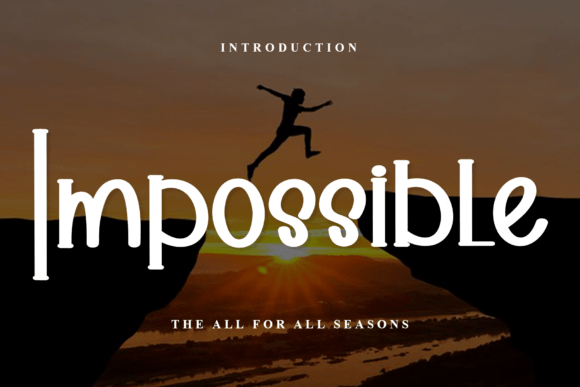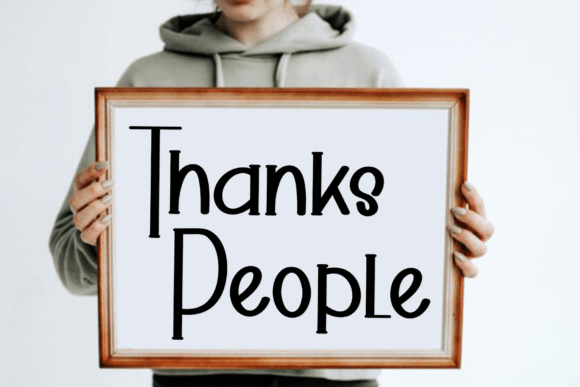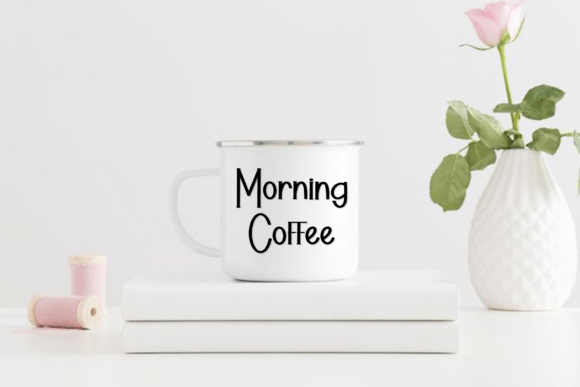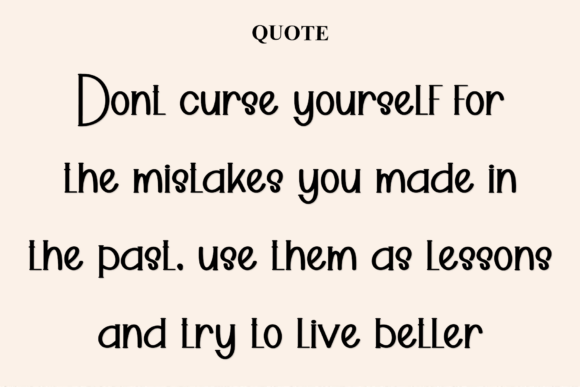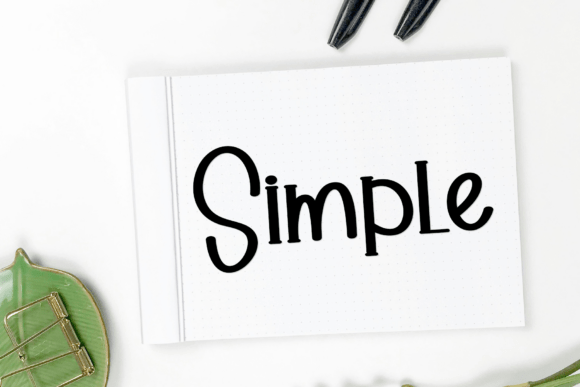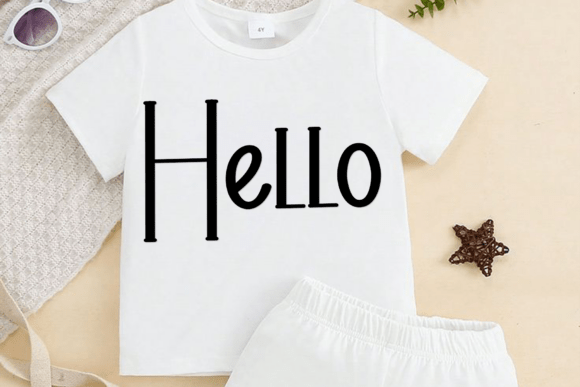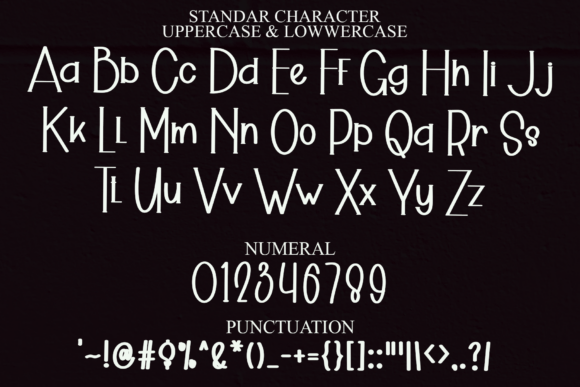
The Magic of the Impossible Font
As I sat down to create a holiday card for my loved ones, I was struggling to find the perfect font that captured the essence of the season. I wanted something that would transport them to a world of wonder and joy, something that would make them feel like they were stepping into a whimsical winter wonderland. And then, I stumbled upon the Impossible Font.
This festive and merry typeface is a game-changer for designers looking to add a touch of magic to their holiday projects. With its decorative elements and whimsical flair, the Impossible Font brings a cheerful and nostalgic ambiance to your words. Whether you’re creating greeting cards, gift tags, or holiday-themed projects, this font is sure to make your typography shine.
And the best part? The Impossible Font is PUA encoded, making it easy to access all of its amazing glyphs and ligatures. With this font, you can let your creativity run wild and add a dash of holiday magic to your designs.
Impossible Font Key Features
- Unique Character Set: The Impossible Font features a unique set of characters, including letters, numbers, and symbols, designed to be visually striking and attention-grabbing.
Impossible Font Review
First off, I want to say that I love the unique approach of the Impossible Font. ✨ It’s definitely one of a kind, and I appreciate the designer’s creativity in pushing the boundaries of typography. The font is perfect for those looking for a bold, eye-catching statement, and it’s sure to grab attention.
The Impossible Font is also highly customizable, with a wide range of options for color, size, and layout. ✨ This makes it easy to integrate into any design project, and the results are always impressive. Whether you’re creating a logo, brochure, or website, this font is sure to add a touch of sophistication and style.
- ⚠️ The font can be overwhelming if used excessively – it’s best to use it in moderation to avoid visual fatigue.
- ⚠️ Some users may find the font difficult to read due to its unconventional design.
- ⚠️ The font may not be suitable for large blocks of text, as it can become tiresome to read.
Overall, I think the Impossible Font is a great addition to any designer’s toolkit. While it may have some limitations, the benefits far outweigh the drawbacks. With careful use and consideration, this font can elevate any design project to the next level.
Tips for Getting the Most Out of Impossible Font
Impossible Font is ideal for creating visually striking and unique designs. To get the most out of it, try combining it with bold colors and geometric shapes. You can also experiment with different font sizes and styles to create a sense of depth and hierarchy.
Impossible Font is perfect for creating eye-catching social media graphics, logos, and branding materials. It’s also great for adding a touch of whimsy and playfulness to your designs, making it ideal for children’s books, educational materials, and marketing campaigns.